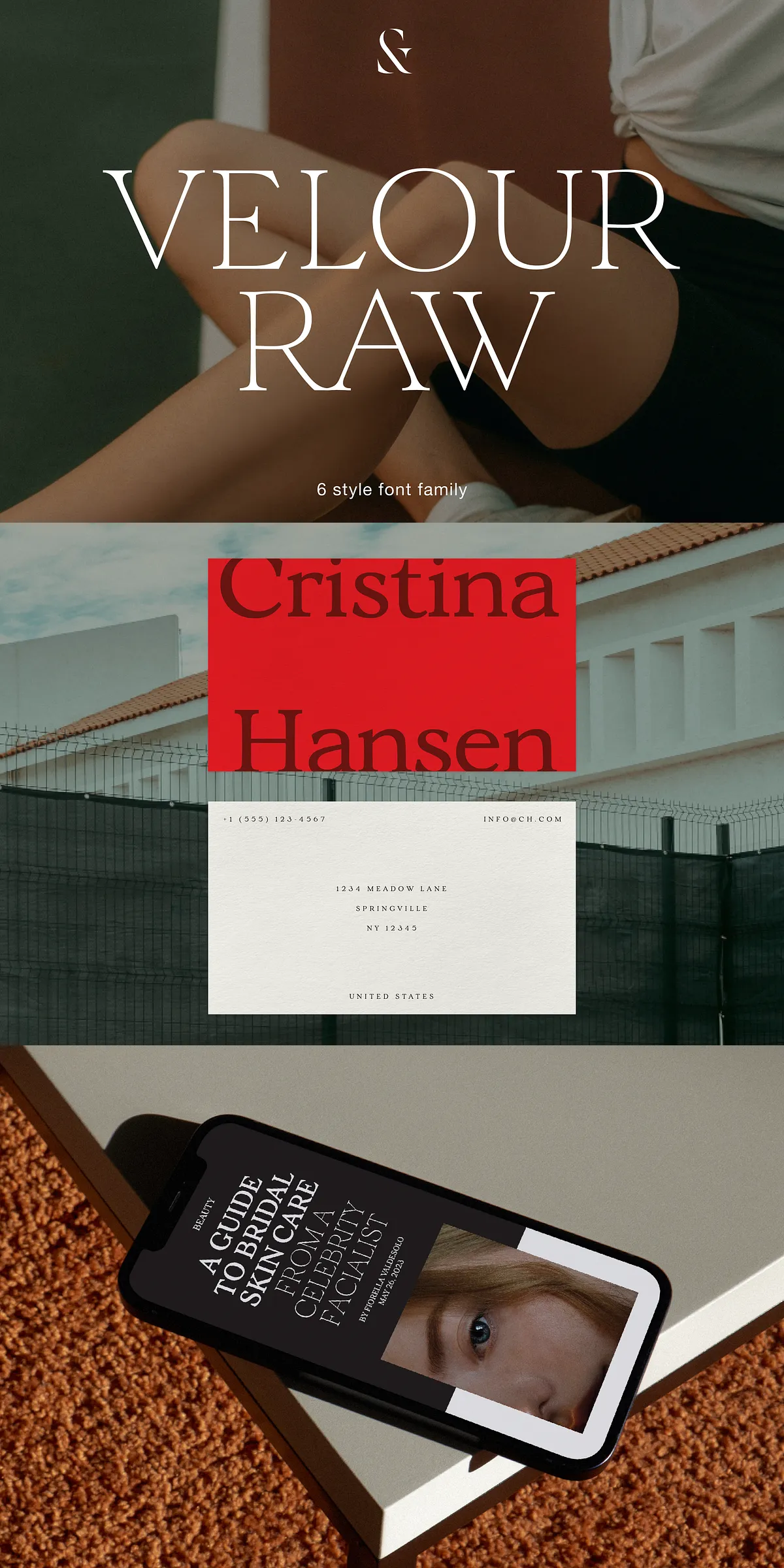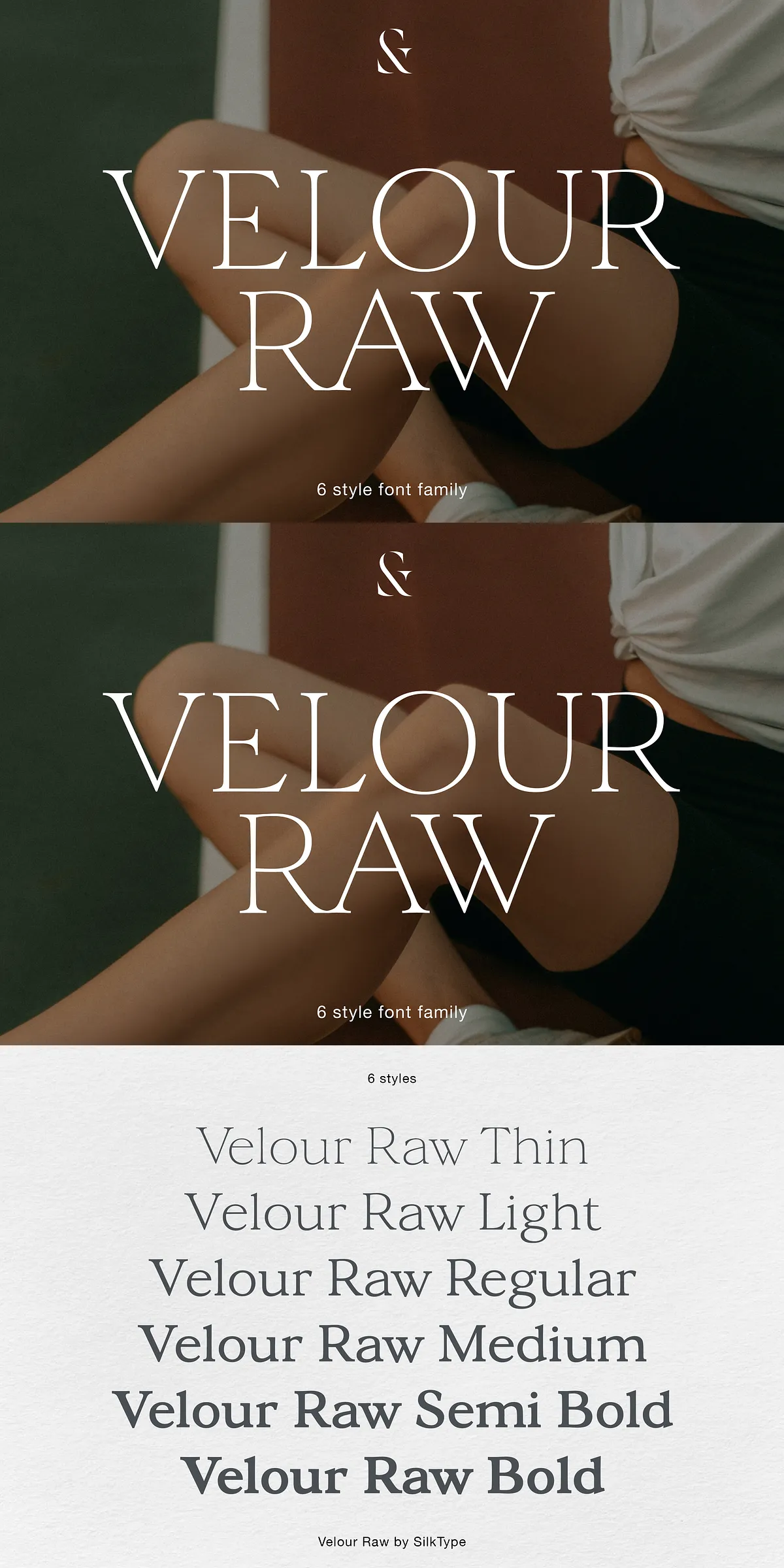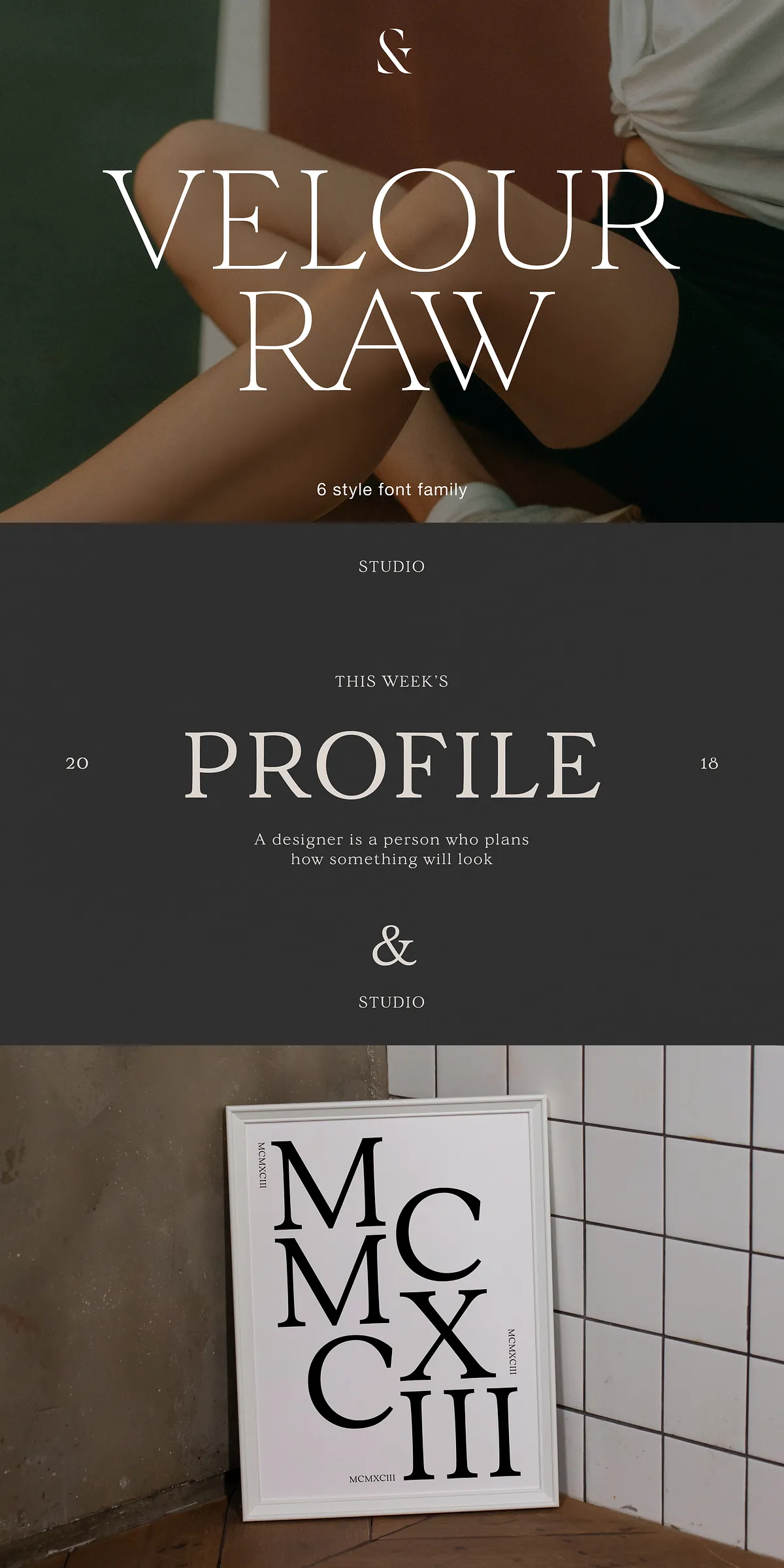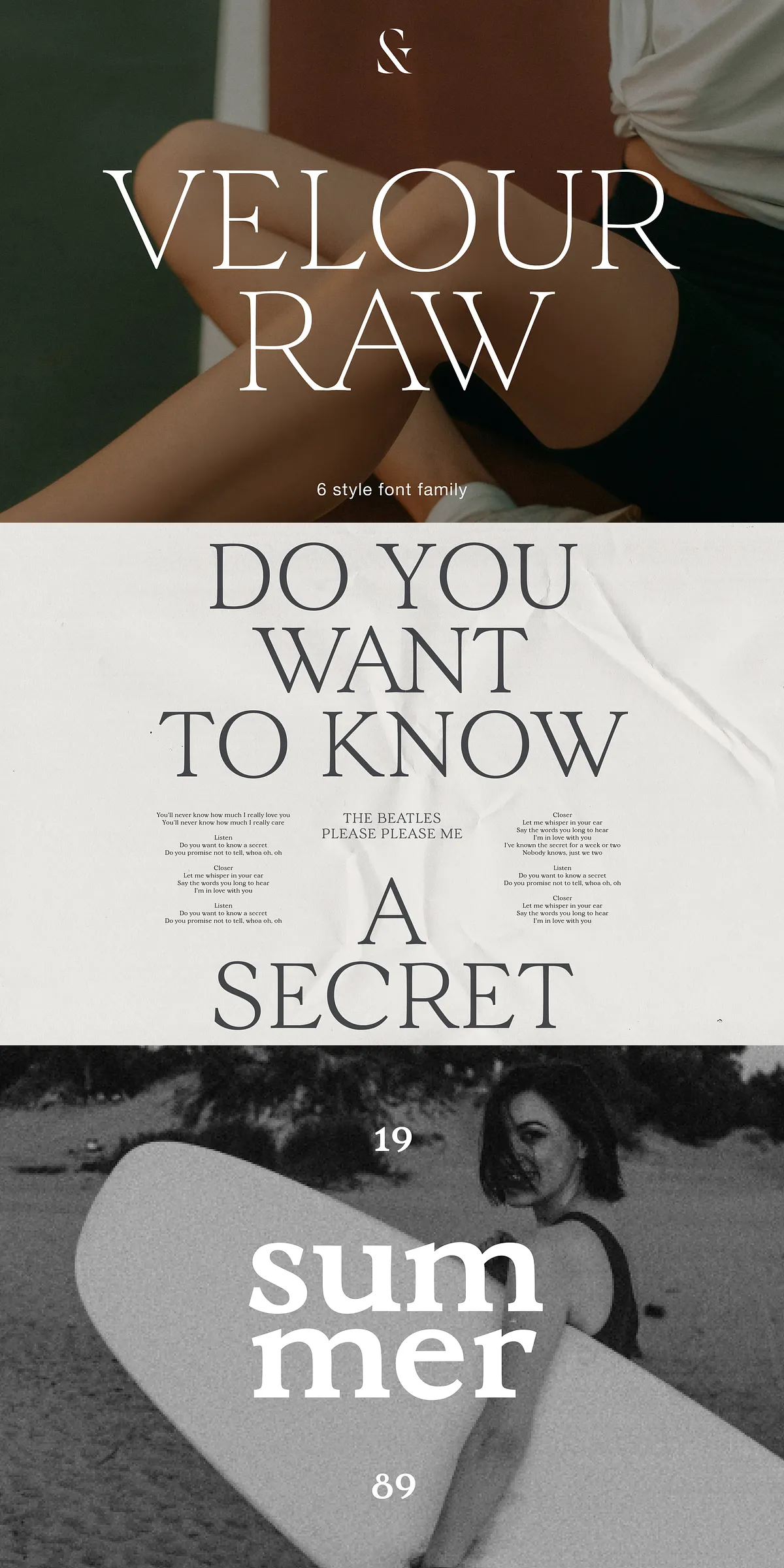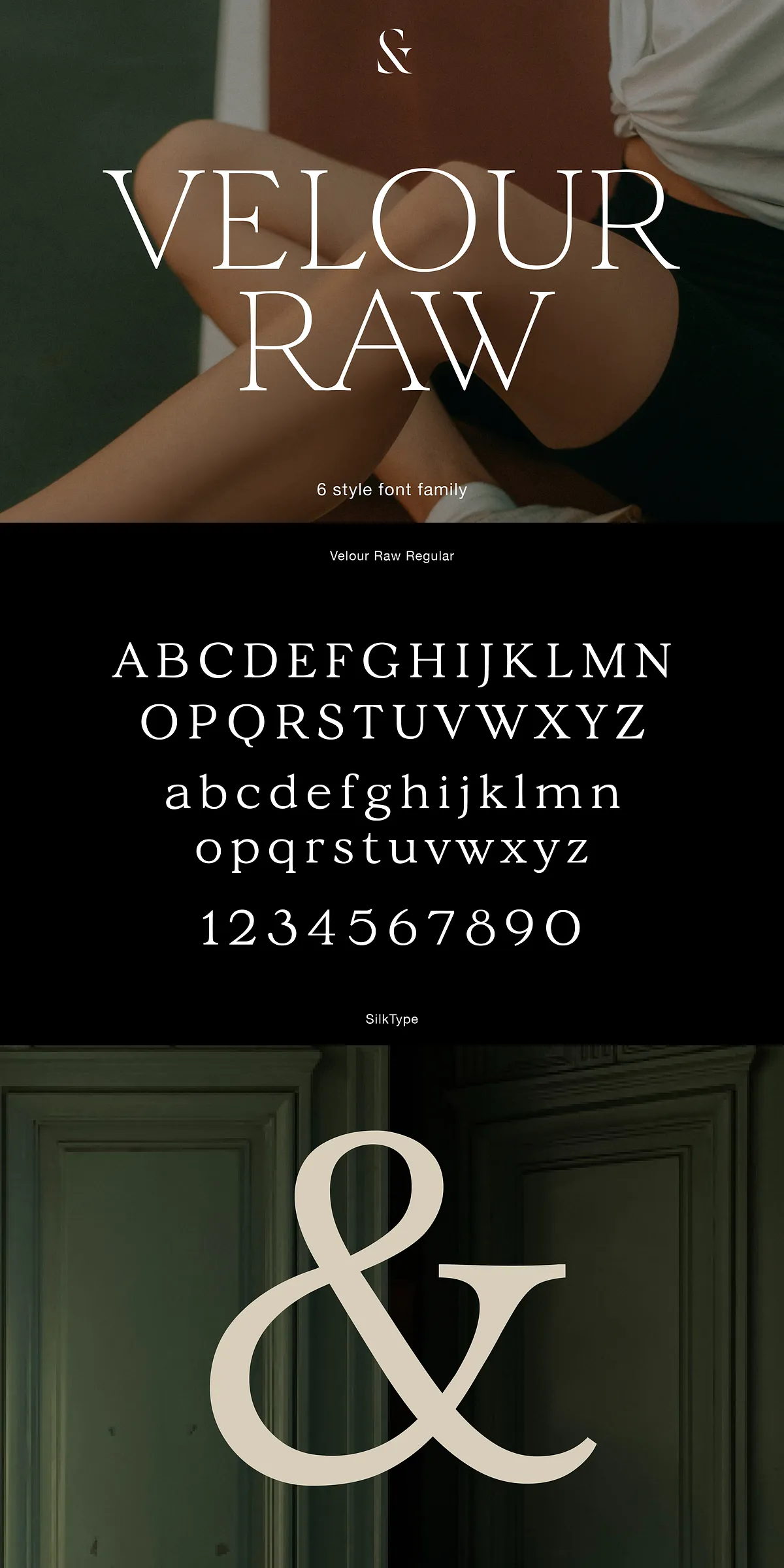
Meet Velour Raw — the refined, minimalist evolution of the acclaimed Velour display typeface. Designed for clarity and control, Velour Raw strips away unnecessary contrast to deliver a bold yet balanced appearance that shines at every scale. Whether you’re setting body text in a magazine layout, crafting a bold headline, or building a sleek digital interface, Velour Raw delivers unmatched legibility and visual harmony.
Engineered for Legibility, Built for Impact
Unlike its more dramatic predecessor, Velour Raw isn’t defined by high contrast or ornate details — it’s defined by intentional simplicity. Its carefully balanced stroke weights and consistent letter spacing ensure that each character remains sharp and easy to read, even in smaller sizes. This makes it ideal for editorial design, product packaging, mobile UI, and long-form content where readability is non-negotiable.
Built with the modern typographer in mind, Velour Raw maintains the sophisticated character of the original Velour while removing visual noise. The result? A typeface that’s not just beautiful but functional — a true powerhouse for any project that demands precision and presence.
6 Weights, Infinite Possibilities — From Thin to Bold
Velour Raw offers a comprehensive family of 6 distinct weights, ranging from delicate Thin to powerful Bold, giving you full control over hierarchy and tone. Use the Thin weight for elegant headlines or subtle accents, the Light for refined body text, and the Regular for clear, balanced layouts. Push further with Medium and Semibold for strong emphasis, or go all-in with the Bold version for maximum impact in titles and branding.
This full-weight spectrum lets you build rich, layered designs without mixing fonts. It’s not a compromise — it’s a command center for typography.
Global Reach, Local Precision — Full Multilingual Support
Built for today’s interconnected world, Velour Raw fully supports Western, Central, and South Eastern European languages. This means you can confidently use the font in professional design work across countries and markets — no need to switch fonts or worry about missing characters.
- Latin Script Expansion – Includes accented characters, ligatures, and special symbols required for French, German, Spanish, Polish, Czech, Hungarian, Croatian, Slovenian, and more
- Extended PUA Encoding – Ensures access to all glyphs, even in legacy software or limited font environments
- Professional Typography Features – Support for small caps, old-style figures, and discretionary ligatures for polished results
Whether you’re designing for a Berlin-based startup, a Prague art gallery, or a Madrid fashion brand, Velour Raw speaks every language — clearly, beautifully, and exactly as intended.
Where Velour Raw Works Best
From editorial design to branding, Velour Raw excels in projects that need both elegance and clarity:
- Typography-Driven Branding – Create strong, memorable identities with clean, modern text
- Magazine & Book Layouts – Ideal for subheadings, pull quotes, and body text with visual consistency
- Website UI/UX Copy – Delivers crisp, readable text across all devices and screen sizes
- Product Packaging & Label Text – High legibility ensures your message isn’t lost on shelves
- Presentation & Slide Text – Clear, bold, and professional — perfect for corporate and creative presentations
When you need a display font that doesn’t sacrifice readability, Velour Raw is the answer. It’s not just a font — it’s a philosophy: less noise, more impact.